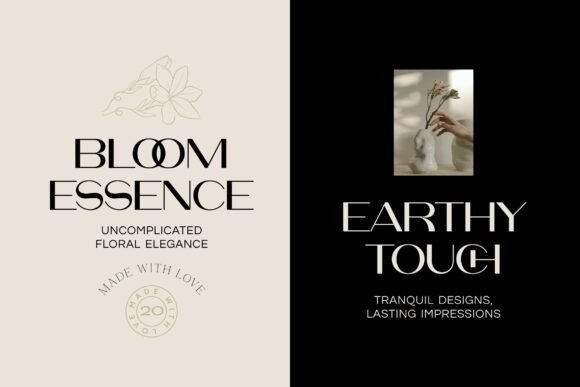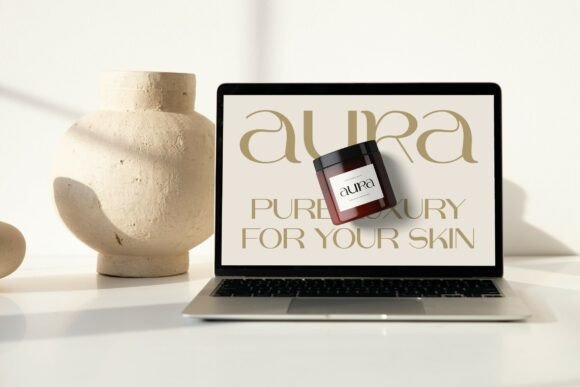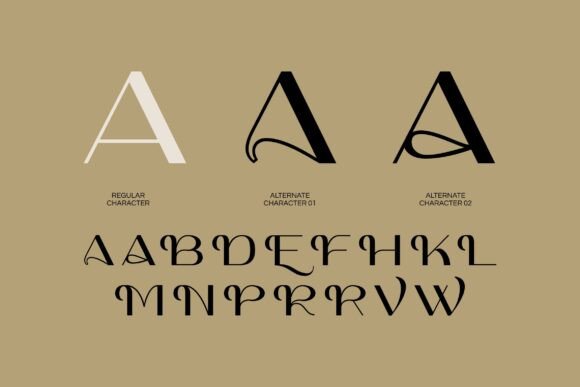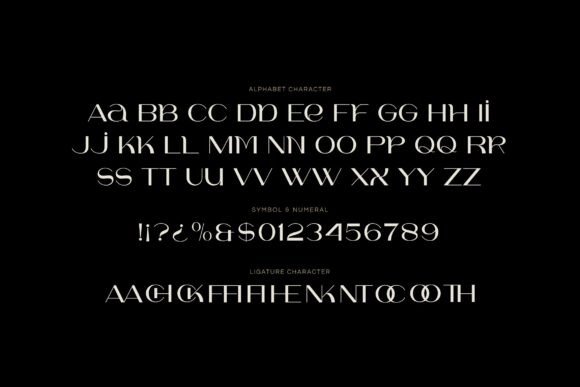
Gracie Aquos Font: Elevate Your Design with Elegance and Simplicity
In the world of typography, a well-crafted font can make all the difference in elevating your design from ordinary to extraordinary. Introducing Gracie Aquos, a stylish sans serif font that seamlessly blends simplicity with elegance. This beautiful typeface is designed to bring a refined yet approachable feel to any design project, making it an ideal choice for designers and crafters looking to add a modern, personal touch to their work.
The Characteristics of Gracie Aquos
Gracie Aquos boasts smooth, clean strokes and a natural flow that sets it apart from other sans serif fonts. Its elegant design makes it perfect for a wide range of applications, from branding and social media to stationery and beyond. The font’s refined appearance is balanced by its approachable feel, making it an excellent choice for designers who want to create a lasting impression.
Key Features of Gracie Aquos
- Stylish Sans Serif Design: Gracie Aquos features a sleek and modern sans serif design that is both elegant and sophisticated.
- Smooth and Clean Strokes: The font’s smooth, clean strokes create a refined appearance that is perfect for designs that require a touch of elegance.
- Natural Flow: Gracie Aquos has a natural flow that makes it easy to read and adds to its approachable feel.
- Versatile: This font is ideal for a wide range of design projects, including branding, social media, stationery, and more.
Why Choose Gracie Aquos?
With so many fonts to choose from, why should you choose Gracie Aquos for your next design project? Here are just a few reasons:
- Unique and Memorable: Gracie Aquos is a unique and memorable font that will help your design stand out from the crowd.
- Elegant and Refined: The font’s elegant design makes it perfect for designs that require a touch of sophistication.
- Approachable and Friendly: Despite its refined appearance, Gracie Aquos has an approachable feel that makes it perfect for designs that require a personal touch.
- Easy to Read: The font’s natural flow and smooth strokes make it easy to read, even at small sizes.
Using Gracie Aquos in Your Design
Gracie Aquos is a versatile font that can be used in a wide range of design projects. Here are just a few ideas to get you started:
- Branding: Use Gracie Aquos as a logo font or as a supporting font to add a touch of elegance to your brand’s visual identity.
- Social Media: Add a personal touch to your social media graphics with Gracie Aquos, perfect for creating engaging and shareable content.
- Stationery: Elevate your stationery designs with Gracie Aquos, ideal for creating business cards, letterheads, and more.
- Packaging: Use Gracie Aquos to add a touch of sophistication to your packaging designs, perfect for luxury brands and products.
In conclusion, Gracie Aquos is a stylish sans serif font that is sure to elevate your design projects with its elegant and refined appearance. Its smooth, clean strokes and natural flow create a unique and memorable feel that is both approachable and sophisticated. Whether you’re a designer or crafter, Gracie Aquos is an excellent choice for anyone looking to add a modern, personal touch to their work. So why wait? Try Gracie Aquos today and see the difference it can make in your designs!